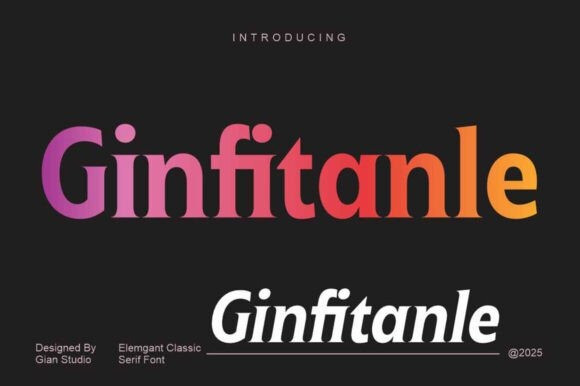
Ginfitanle Font is a harmonious and stylish contemporary serif typeface with a classic feel. Includes 2 Fonts, upright and italic, swollen stems, and italics, growing along with the font character. OpenType features allow the application of typography such as ligatures and support for multiple languages. Ginfitanle is a perfect choice for your various design projects such as editorial design, headlines, branding projects, Logo design, packaging, magazine titles, advertisements, short or long texts, web design, and more.